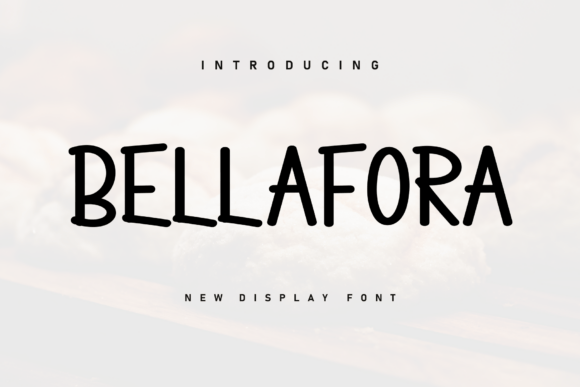
Bellafora Handwritten Font for Authentic Branding
As a small business owner who designs my own packaging, writes Instagram captions, prints product labels, and updates my café menu weekly—I’ve learned that font choice isn’t just about “looking nice.” It’s about showing up consistently, clearly, and confidently across every customer touchpoint. That’s why Bellafora has become one of my most-used display fonts.
Bellafora is a handwritten font that looks like it was drawn with a marker—loose, relaxed, and full of quiet energy. It’s not overly formal or fussy, but it’s also not messy or hard to read. There’s a sporty ease to its curves and rhythm, and a warmth that feels human and intentional—not generic or AI-generated. That balance makes Bellafora ideal for businesses that want to feel approachable without sacrificing polish.
I first used Bellafora on the logo for my handmade candle line. Paired with a clean sans serif for ingredient lists and care instructions, it gave the brand personality at a glance—on the jar label, the website banner, and even the thank-you card tucked inside each box. Customers told me the packaging felt “thoughtful” and “like it was made just for them.” That’s the power of a well-chosen display font: it quietly communicates your values before a single word is read.
Here’s where Bellafora works best in real business use:
- Logos & branding marks — Its confident, slightly bouncy baseline gives logos presence without shouting. Great for boutiques, wellness studios, and creative service providers.
- Product labels & packaging — Works beautifully at 14–24 pt on jars, pouches, and hang tags. The letterforms hold clarity even when printed small on matte kraft paper.
- Menus & signage — My café uses Bellafora for daily specials on chalkboard-style digital banners—and it reads cleanly on both desktop and mobile screens.
- Social media graphics — Stands out in Instagram Stories and Pinterest pins without competing with photos. Try it for quote cards, launch announcements, or seasonal promotions.
- Greeting cards & wedding supplies — Its relaxed elegance fits beautifully on invitations, place cards, and “thank you” notes—especially for modern, nature-inspired, or minimalist celebrations.
- Digital ads & email headers — Captures attention fast in crowded feeds while still feeling grounded and trustworthy.
Bellafora is a script font—but not a delicate, ornate one. It’s built for visibility and versatility. Unlike some handwritten fonts that blur or lose shape at smaller sizes, Bellafora maintains legibility down to 12 pt in print and 16 px on screen. That means it works reliably on product stickers, business cards, and even QR code landing pages—no last-minute font swaps needed.
That said, I don’t use Bellafora for everything. It’s a display font, not a workhorse text face. I reserve it for headlines, logos, short quotes, and accent phrases—never for paragraphs, ingredient lists, or terms & conditions. For those, I pair it with a friendly sans serif (like Inter or Montserrat) or a warm, readable serif (like Lora or Playfair Display). The contrast keeps things balanced: Bellafora brings voice and character; the supporting font brings clarity and structure.
One practical tip: Before committing Bellafora to your full brand system, test it in context. Print a mock-up of your product label at actual size. Paste it into an Instagram post preview. Load it on your website’s hero banner and check how it renders on your phone. Does it still feel aligned with your brand? Does it read easily next to your photography or illustrations? Small adjustments—like tightening letter spacing slightly or adjusting weight—can make a big difference in real-world performance.
For handmade product sellers, Bellafora adds subtle craft credibility. When customers see hand-drawn-style type on a soap label or ceramic mug tag, it reinforces the idea that something thoughtful and personal went into the making. Similarly, coaching and wellness professionals find Bellafora helps soften clinical messaging—turning “mindfulness program” into something that feels inviting, not intimidating.
If you’re building a new brand or refreshing an existing one, consider how Bellafora supports your story—not just your style. A bakery using Bellafora for its “Fresh Daily” sign feels joyful and unhurried. A sustainable apparel brand using it for its “Made With Care” tagline signals intention without pretension. A boutique using it on window decals says “we’re here for real people, not just transactions.”
So if your current branding feels scattered—or if you’re starting fresh and want a font that feels both expressive and dependable—Bellafora is worth trying. Not because it’s trendy, but because it works: quietly, consistently, and authentically across the real, everyday materials your business depends on.